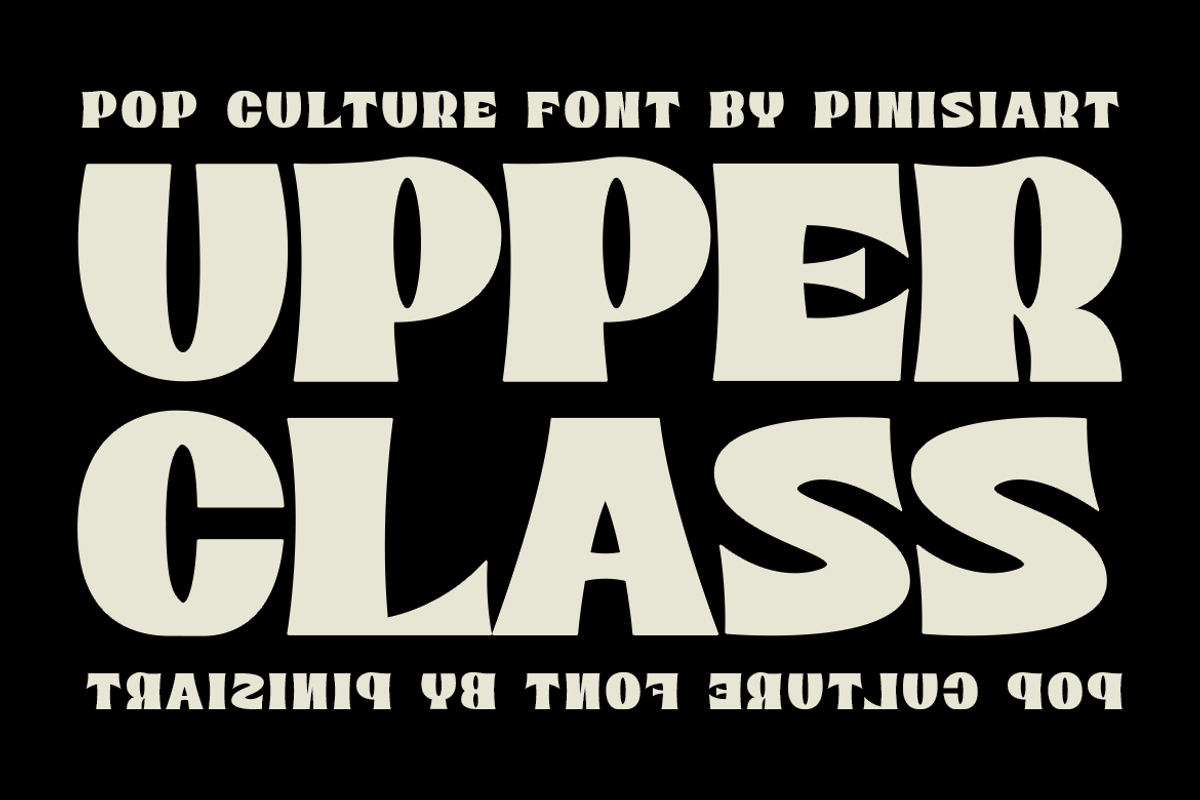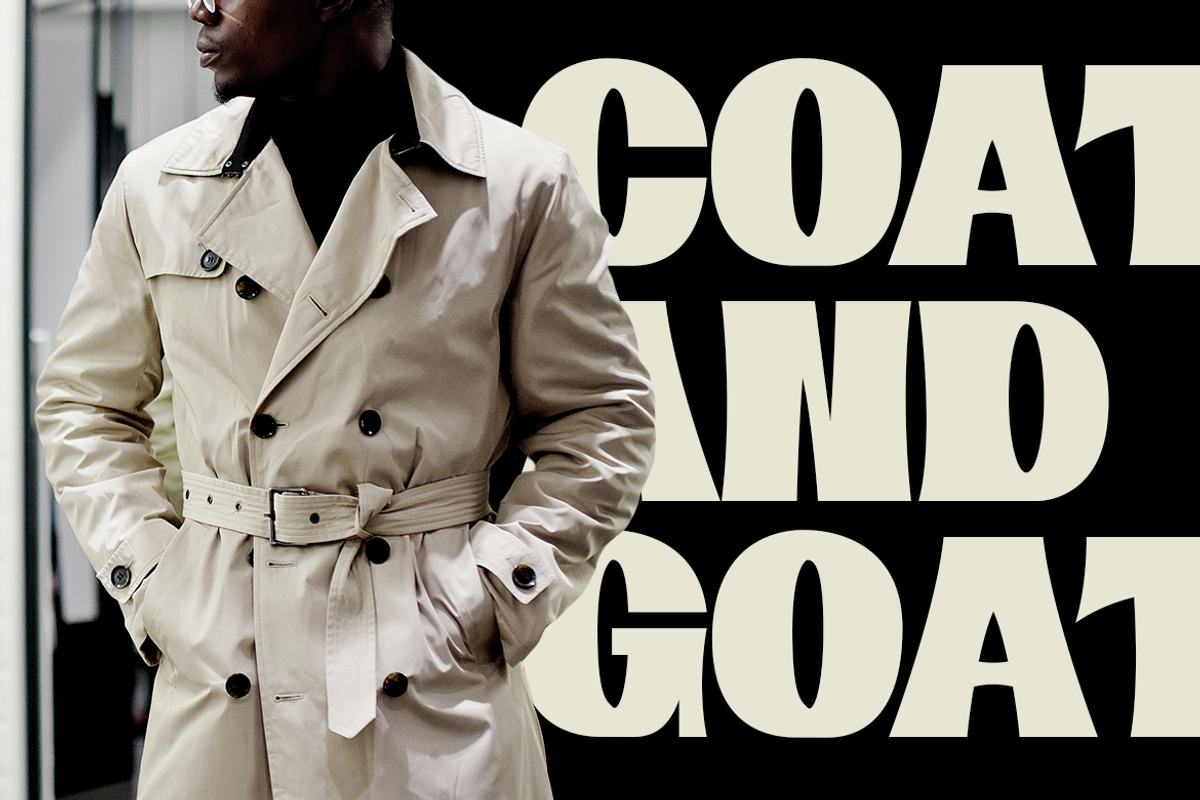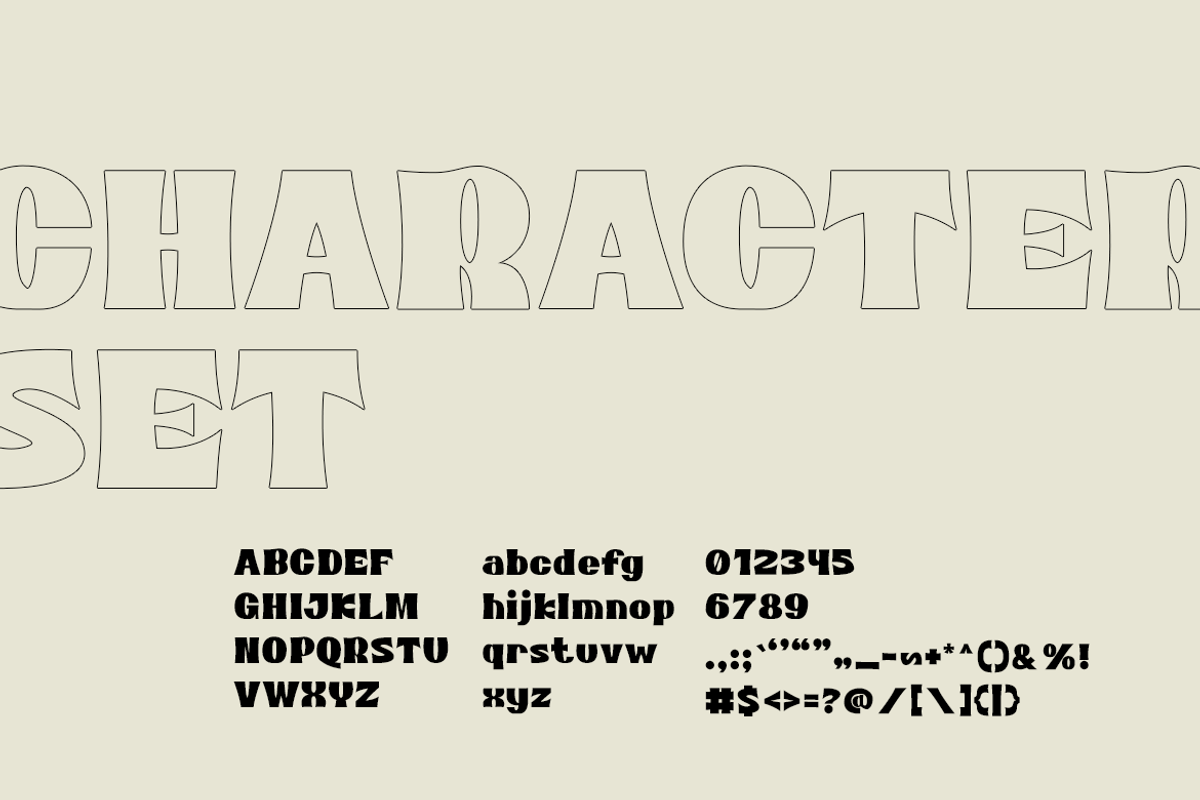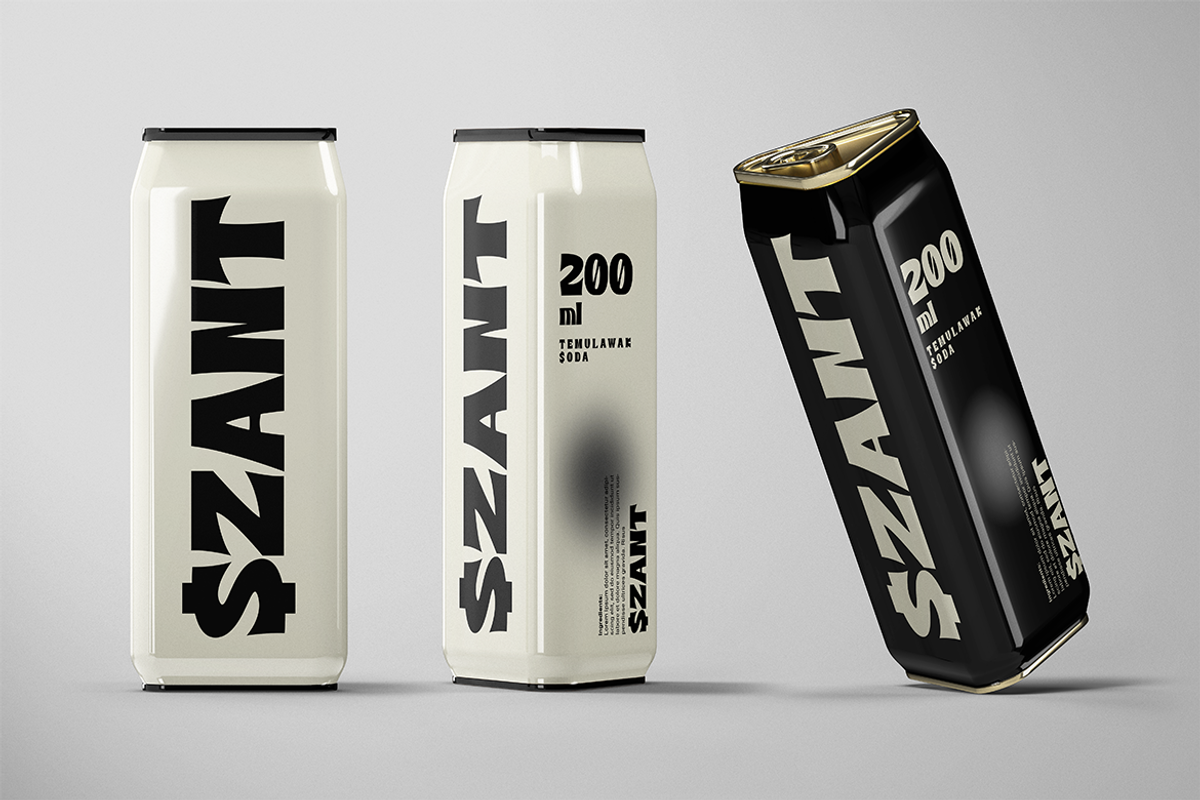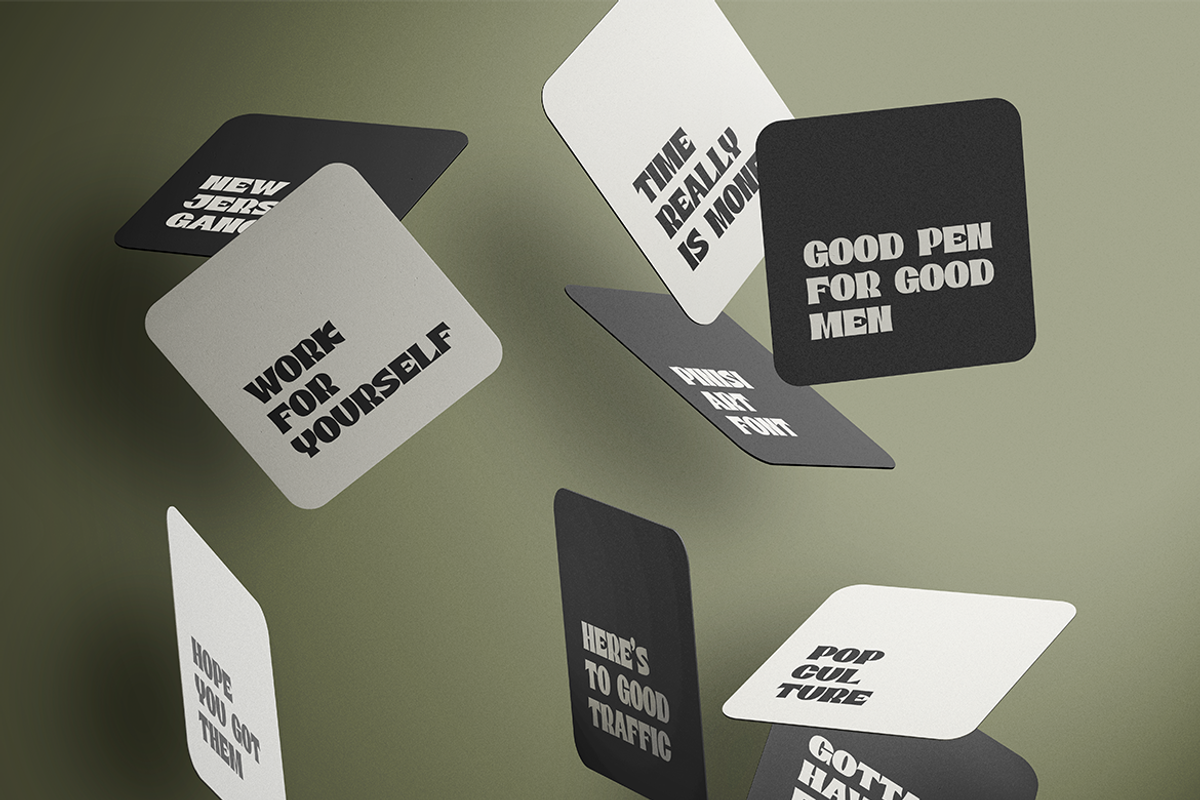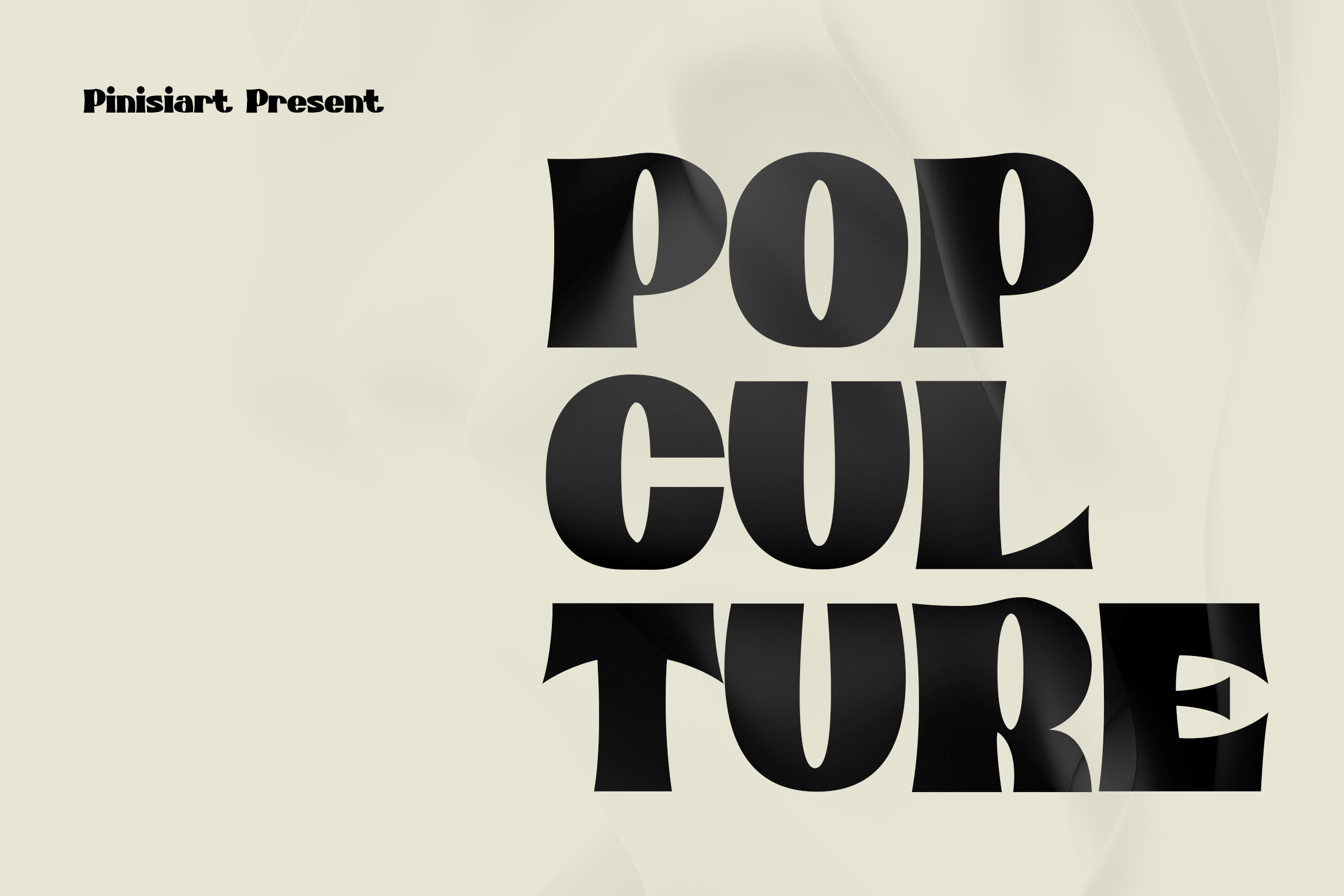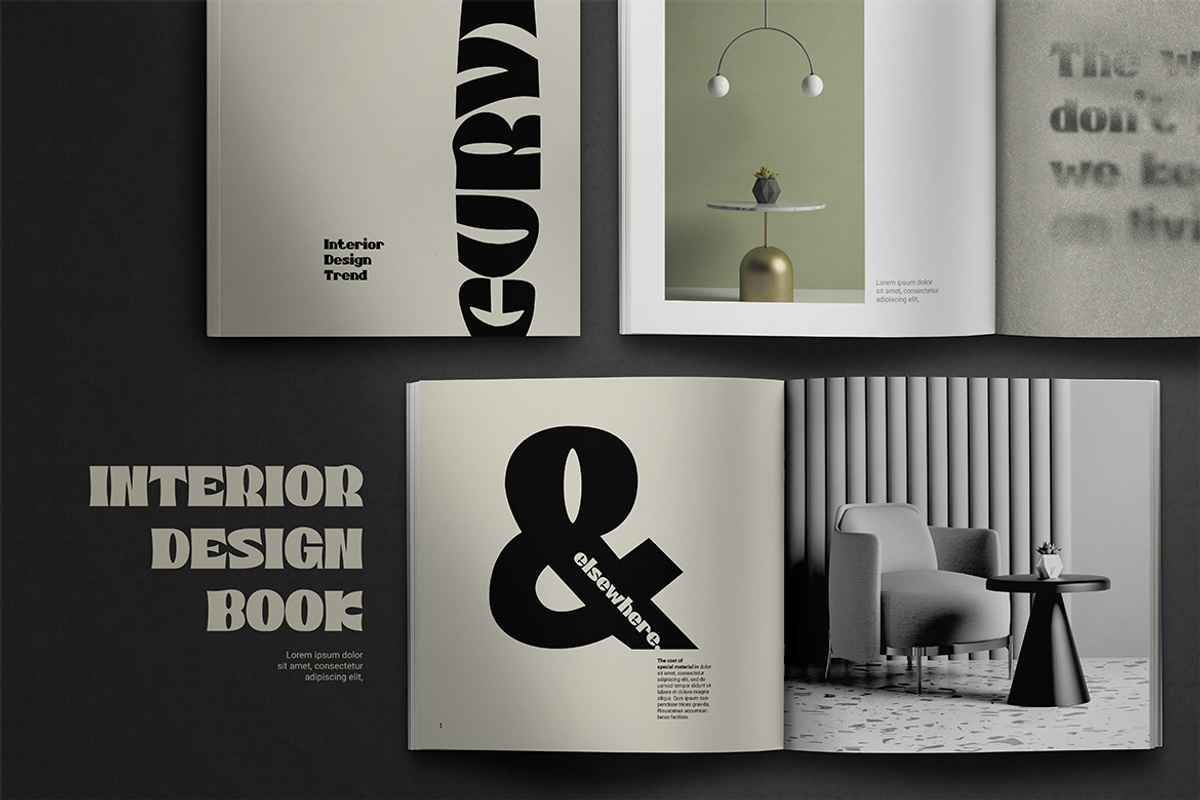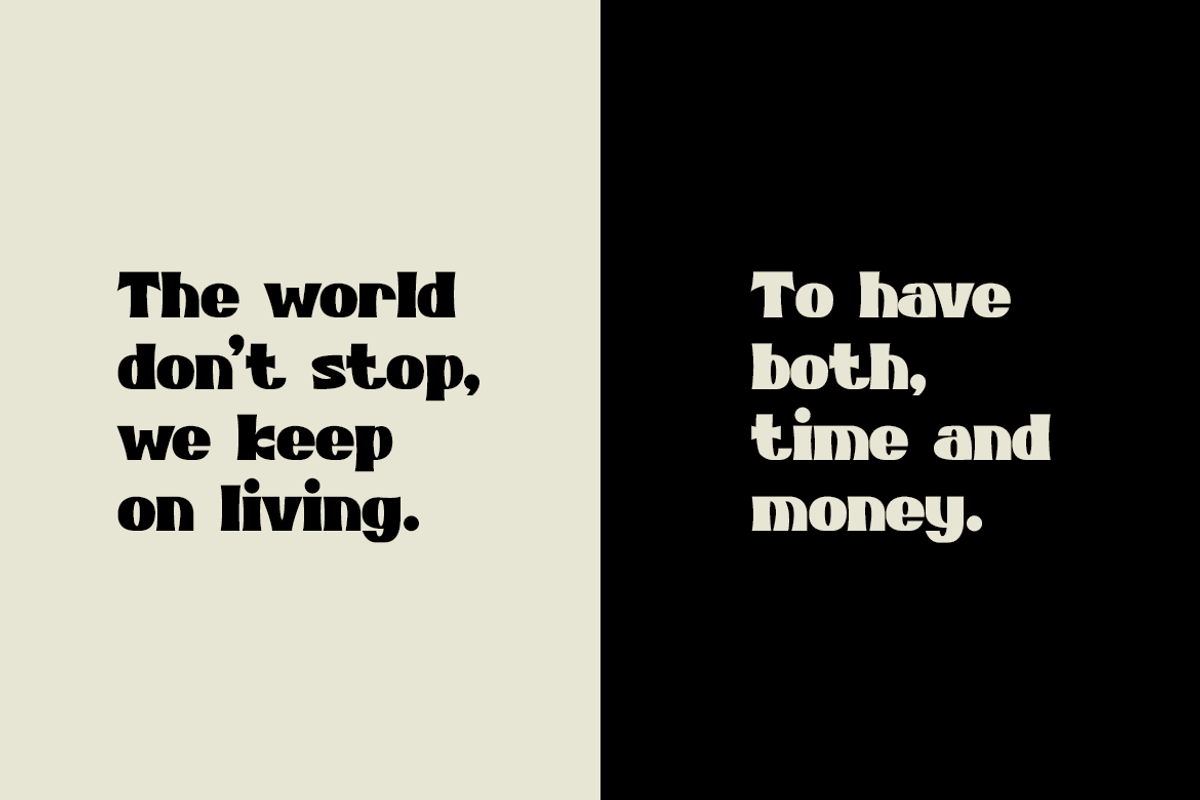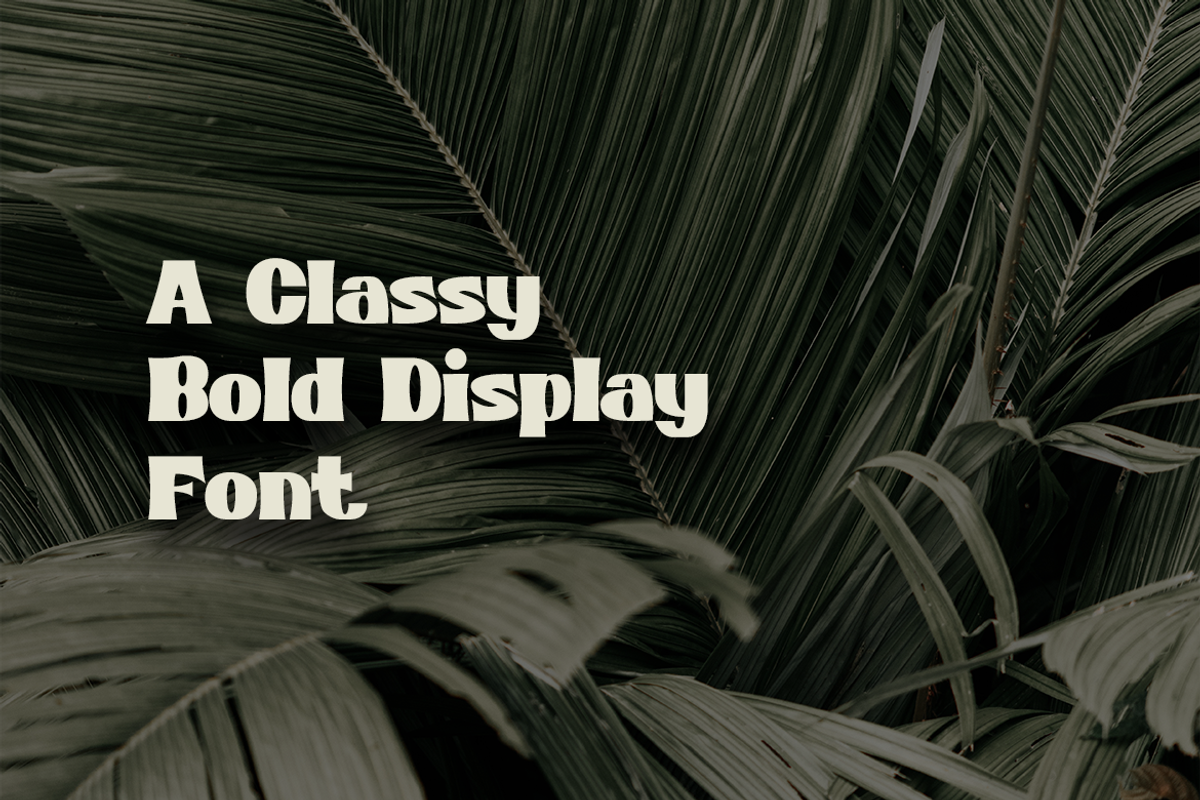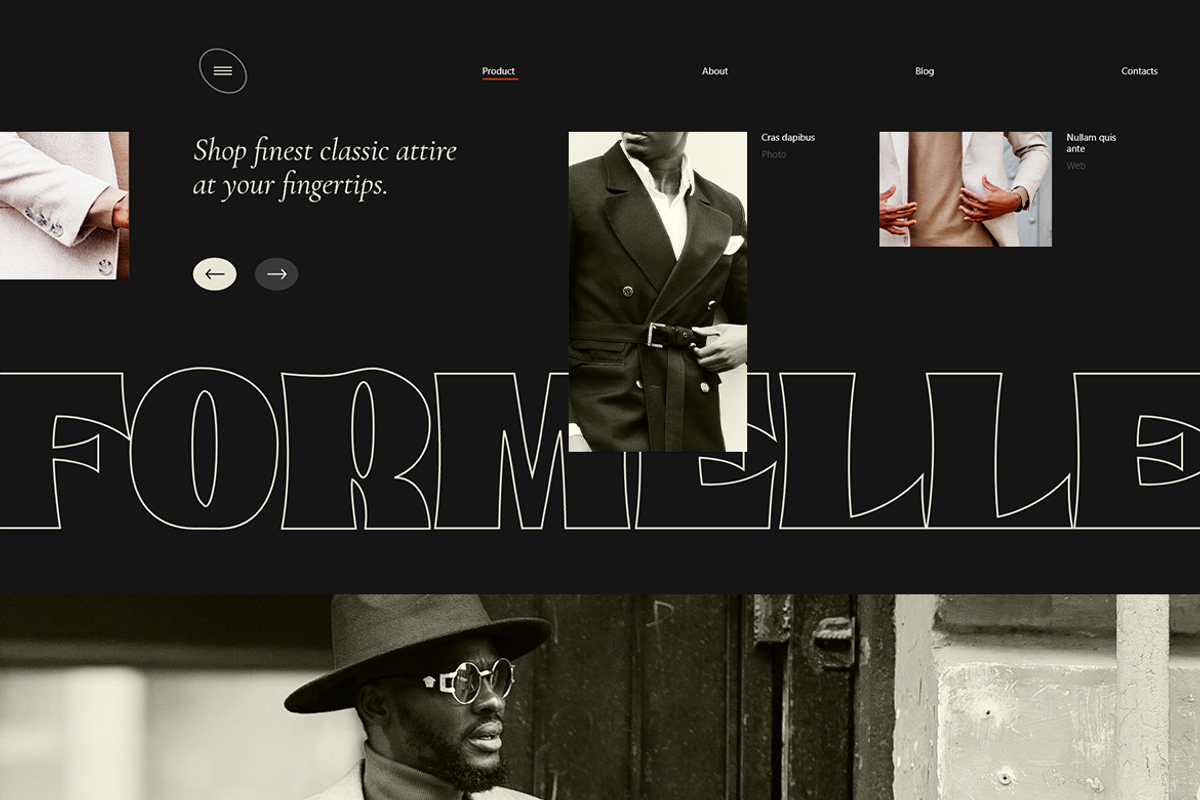
POP CULTURE – Classic Display Font
POP CULTURE – classic display font
Say what you say, but in a bold and elegant way. POP CULTURE will provide you, with a classy but still straight the point looks.
Suit perfectly for mature and elegant themes books market, economic posters, stationary, school supplies font, youtube covers, youtube thumbnails, social media page covers, and so on…